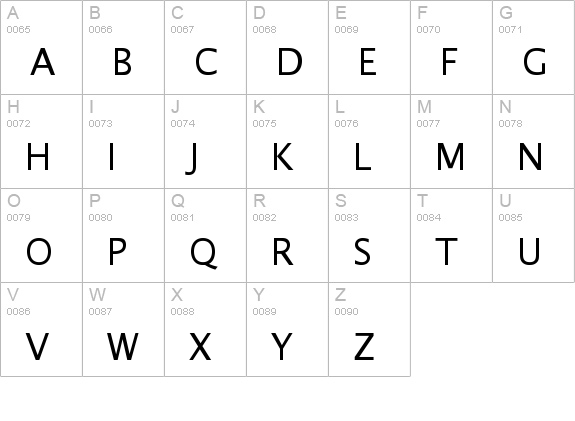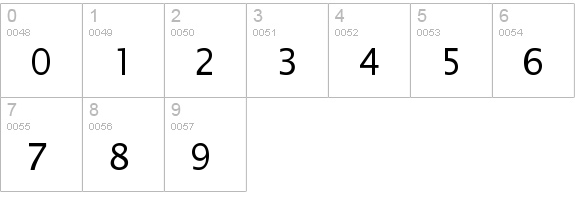
LucidaSansEF-Roman Font Details
LucidaSansEF-Roman is a versatile and elegant font that exudes a sense of modern sophistication. With its clean lines and classic design, this typeface is perfect for a wide range of projects, from professional documents to creative designs. The timeless appeal of LucidaSansEF-Roman makes it a popular choice among designers and typographers alike. What sets LucidaSansEF-Roman apart is that it is available for free download at FontsMarket.com. This means that you can easily access and use this high-quality font in your projects without any cost. Whether you are a seasoned designer or a novice enthusiast, LucidaSansEF-Roman offers a user-friendly experience that will elevate the look of your work. With its timeless charm and accessibility, LucidaSansEF-Roman is a must-have font for anyone looking to add a touch of sophistication to their designs. Download it for free today and see how this versatile typeface can enhance your creative projects.